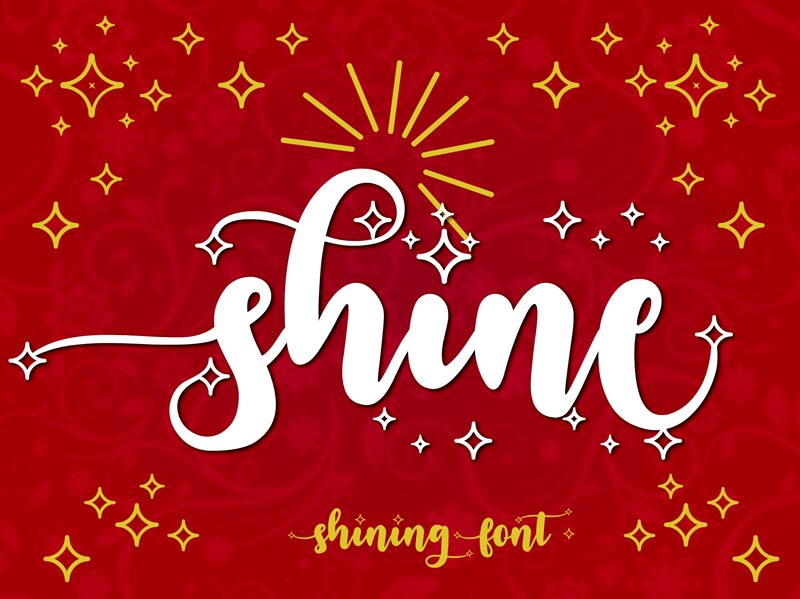
Introducing Shine, a bold and handwritten script font designed by Nuryanto Dwi. Its dynamic flow and unique style makes it perfect for projects such as logo designs, posters, invitations, and more.